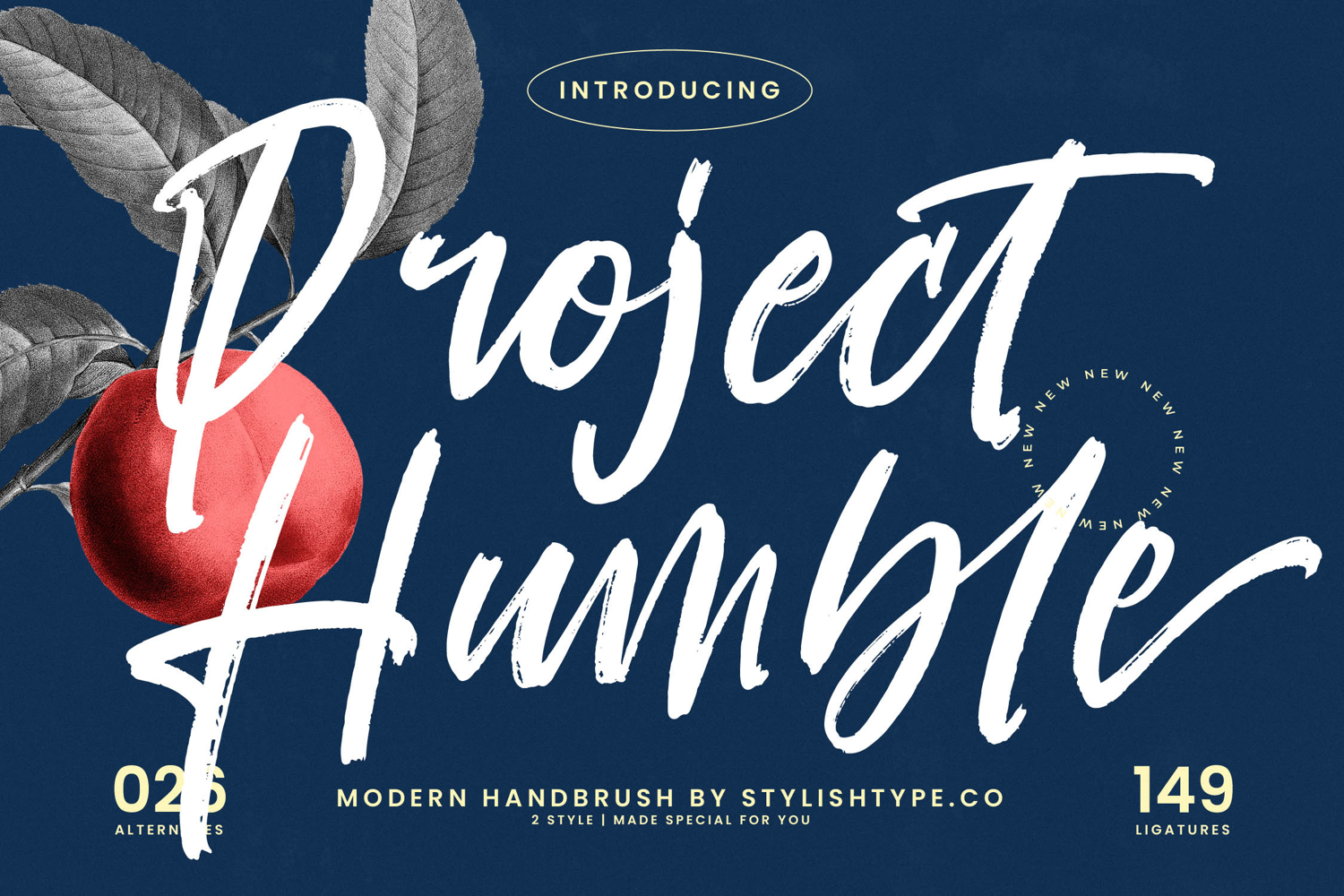
Project Humble Modern Handbrush Font
Unleash unparalleled creativity with Font Project Humble – Modern Handbrush Font Script, a typeface that effortlessly blends raw authenticity with refined elegance. This expressive script captivates with its organic, hand-drawn brush strokes, imbuing every word with a distinctive, human touch. Its dynamic flow and unique character formations create an immediate sense of artistry and sophisticated imperfection, making it ideal for projects demanding both warmth and contemporary flair. Elevate your design work with this truly captivating and authentic handbrush font.
Discover the immense creative versatility woven into every aspect of Font Project Humble – Modern Handbrush Font Script. Designed for designers who appreciate depth and customization, it features a rich collection of extensive alternates and opulent ligatures. These meticulously crafted elements allow for truly unique typographic compositions, ensuring that each design feels bespoke and handcrafted. Its inherent flexibility empowers you to craft a perfectly tailored visual narrative, enhancing your project's distinctiveness.